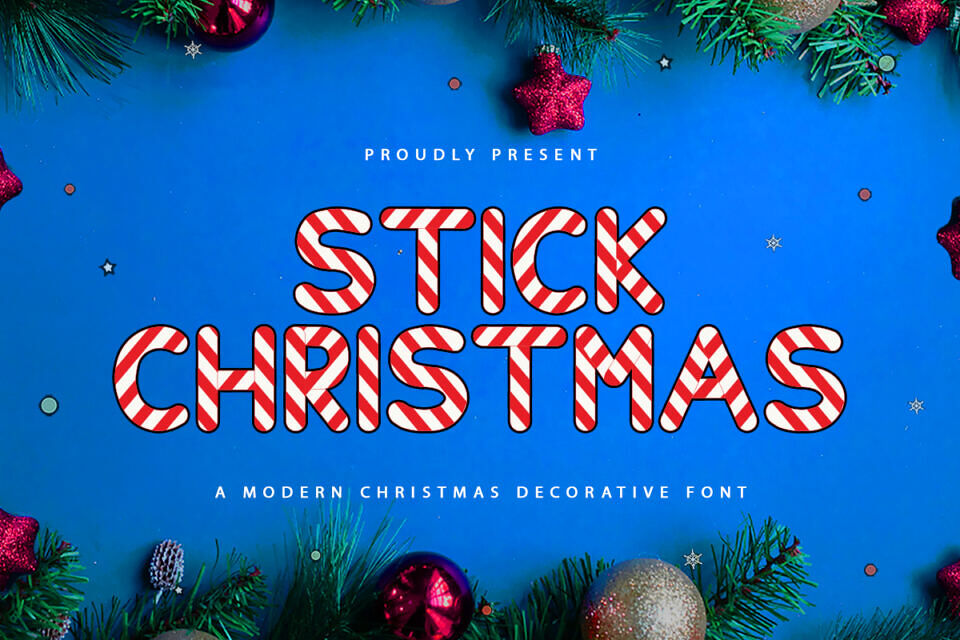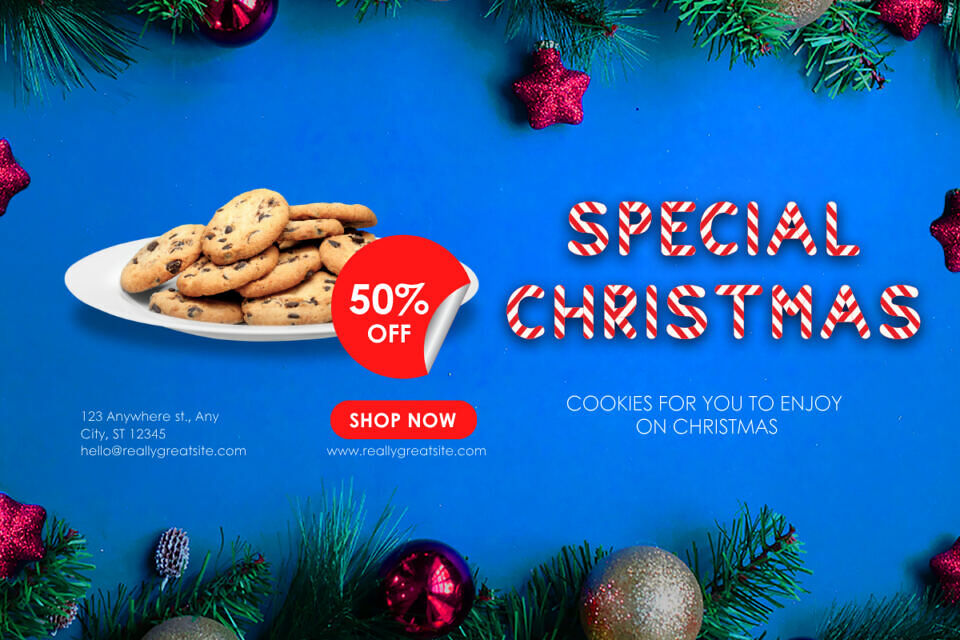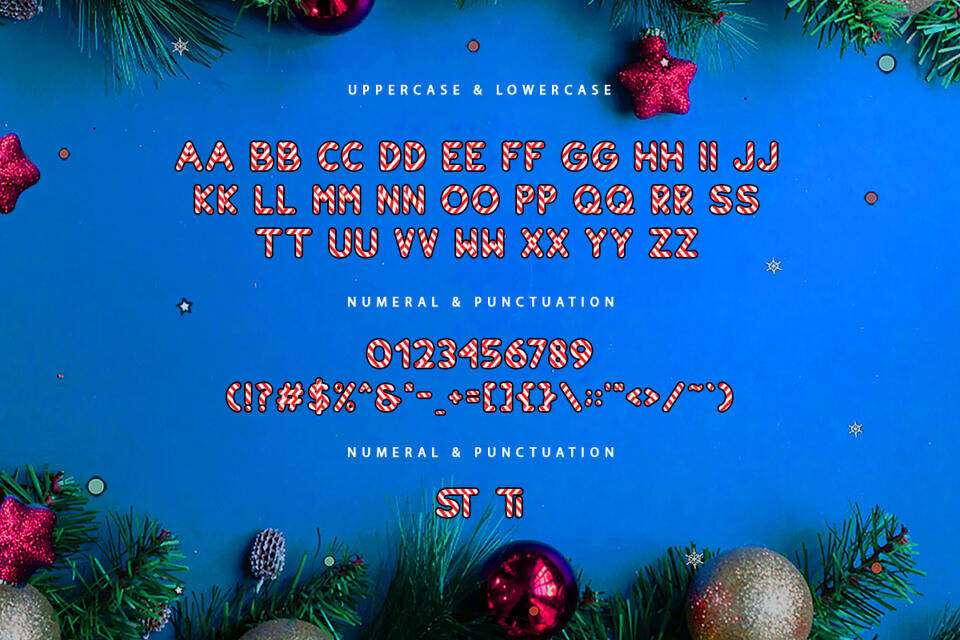
Stick Christmas is a cute display font that redefines holiday aesthetics. Inspired by the playful curves of traditional candy canes, this decorative typeface blends whimsical charm with a modern, artistic flair.
Featuring intricate festive ornaments embedded within its strokes, Stick Christmas offers a distinctive, handcrafted look perfect for high-end apparel. Whether scaled for bold t-shirt graphics or subtle hoodie accents, its unique personality ensures your brand stands out.